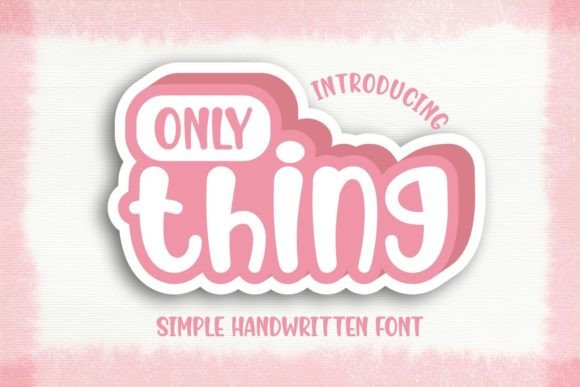
In a world where words fail to capture the depth of emotions, meet Only Thing – an enchanting handwritten font that weaves a spell of love and connection. Crafted by the visionary Rifki (7ntypes), this script font transcends the boundaries of ordinary, inviting you on a journey of heartfelt expression.
With its playful curves and casual strokes, Only Thing dances across your designs like a gentle breeze, whispering sweet nothings in the ears of your audience. Each letter, meticulously crafted to perfection, exudes a friendly and approachable vibe, drawing readers into the warmth of your message.
Whether you're pouring your heart out in a love letter, crafting heartfelt invitations, or adding a touch of charm to your social media graphics, Only Thing is your perfect companion. Let its delicate strokes carry the weight of your emotions, transforming your words into tangible expressions of love, joy, and longing.
Imagine your love letter penned in the graceful curves of Only Thing, each word a brushstroke of pure affection. The recipient's heart will flutter as they trace the elegant lines, feeling the depth of your love in every stroke.
Or picture your wedding invitations adorned with the whimsical beauty of Only Thing. Your guests will be captivated by the font's enchanting allure, setting the tone for a celebration filled with love and happiness.
But Only Thing's magic extends far beyond the realm of romance. Its versatility shines in branding materials, adding a touch of warmth and personality to your logo, website, or marketing collateral. Customers will be drawn to your brand's approachable and genuine aura, fostering a sense of connection and trust.
With Only Thing as your font of choice, you'll create designs that speak to the heart, leaving an unforgettable impression on your audience. Join the countless designers and creatives who have discovered the transformative power of Only Thing and unlock the true potential of your designs.